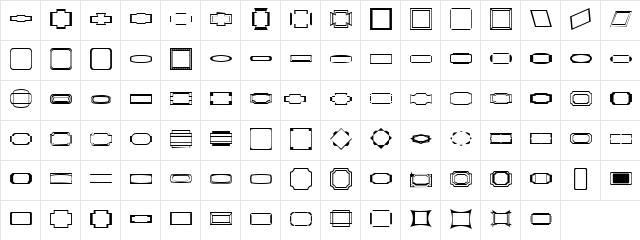
DESIGNERS CHOICE Regular
Design Context for DESIGNERS CHOICE Typeface
DESIGNERS CHOICE takes a measured approach to typography — its balanced proportions and neutral character make it a reliable workhorse for both digital and print work.